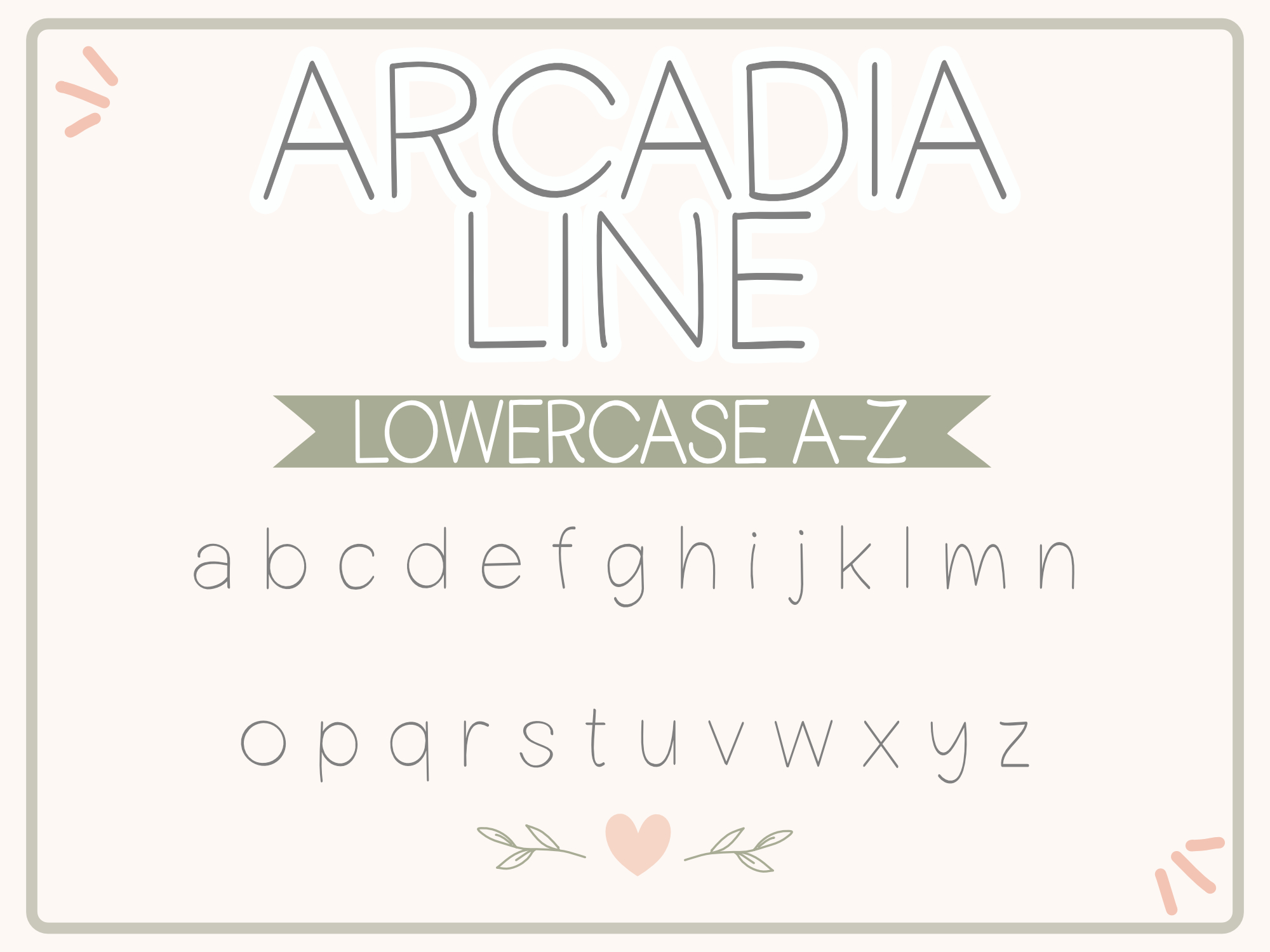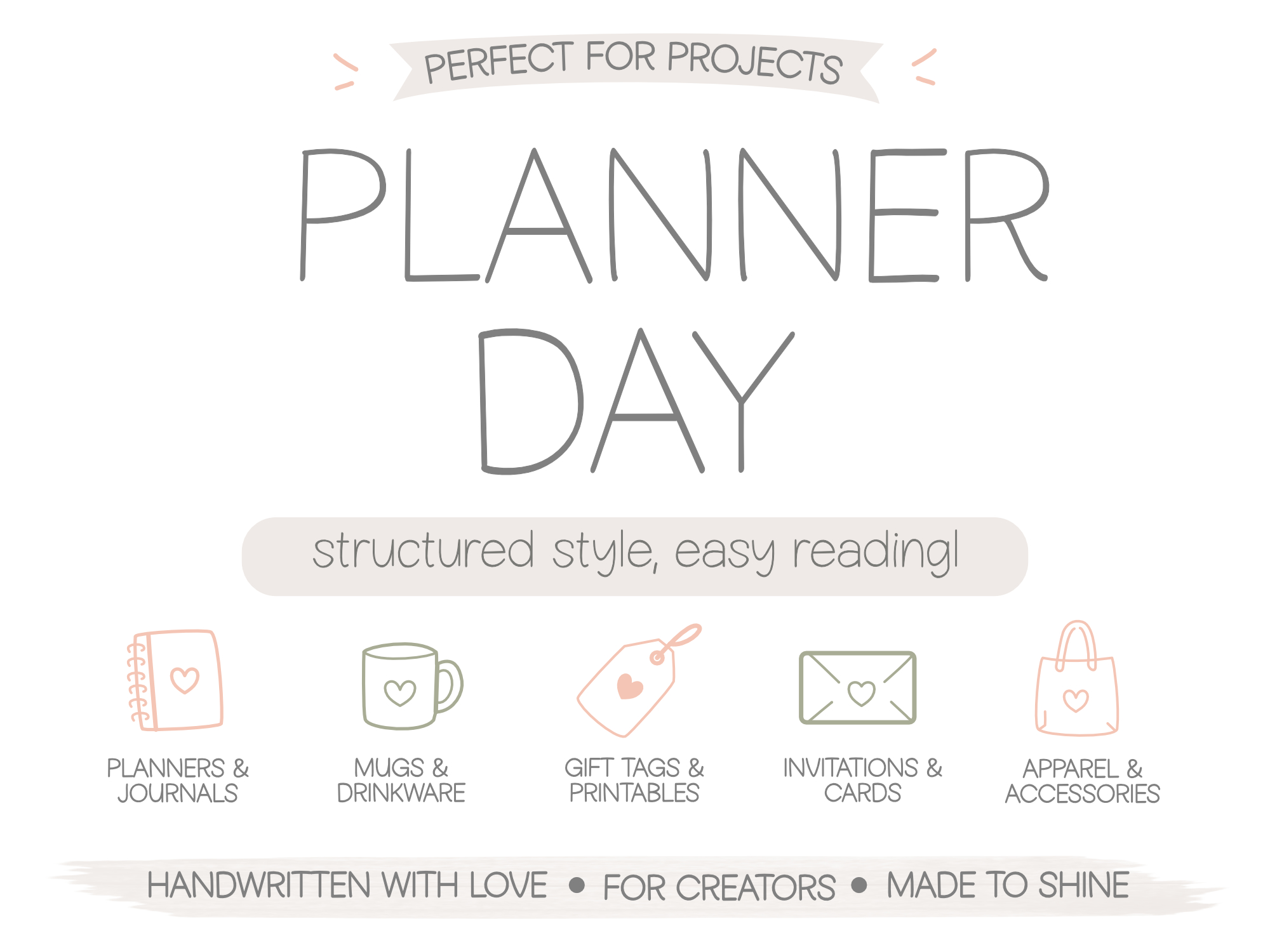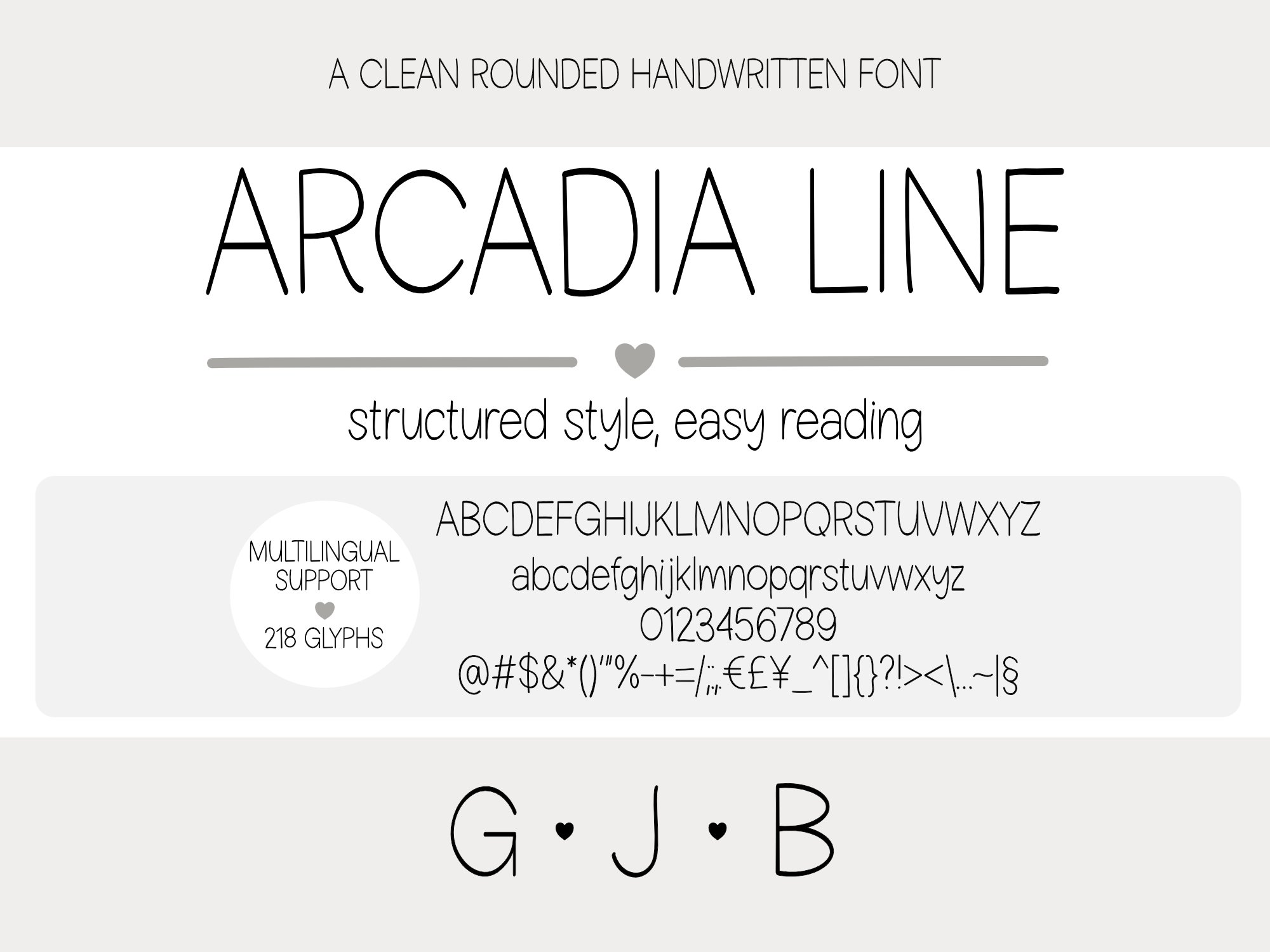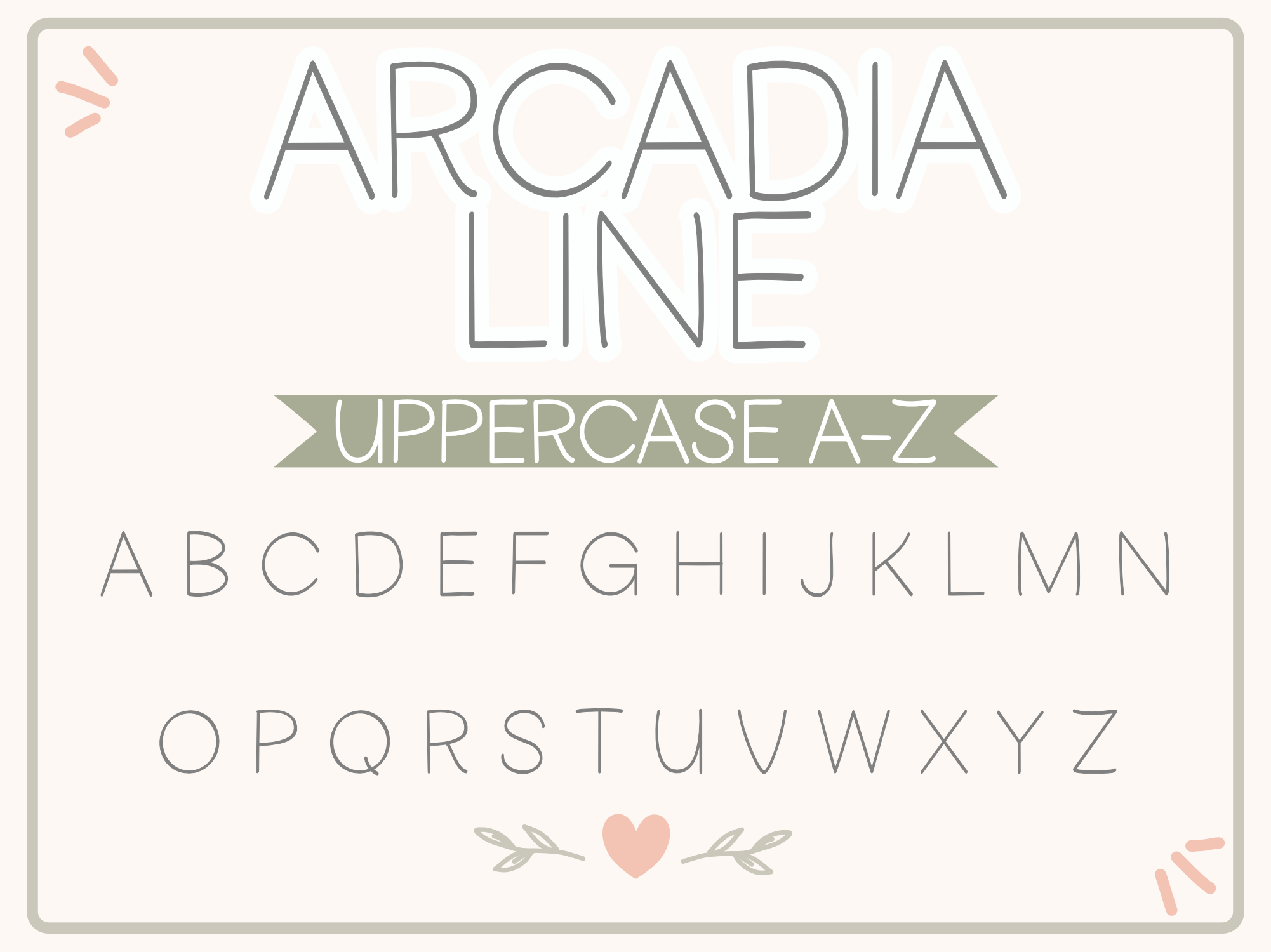
Arcadia Line Font
Structured Style, Easy Reading
Arcadia Line is a clean, monoline handwritten font with softly rounded edges and a balanced, structured feel. It blends the simplicity of everyday handwriting with a more refined, almost architectural style, making it easy to read while still feeling personal.
The consistent line weight keeps everything smooth and cohesive, while the subtle curves add just enough warmth to avoid feeling rigid. It works well for both casual and polished designs without needing any extra styling.
Arcadia Line includes a full set of uppercase and lowercase letters, numbers, punctuation, and extended characters, making it a solid choice for a wide range of projects.
Best Uses
Branding and logos
Worksheets and educational materials (this is a strong one for teachers)
Packaging and labels
Social media graphics
Digital planners and printables
Minimalist designs
Style Notes
Monoline (no pressure variation)
Rounded, soft edges
Clean and highly legible
Slightly geometric structure